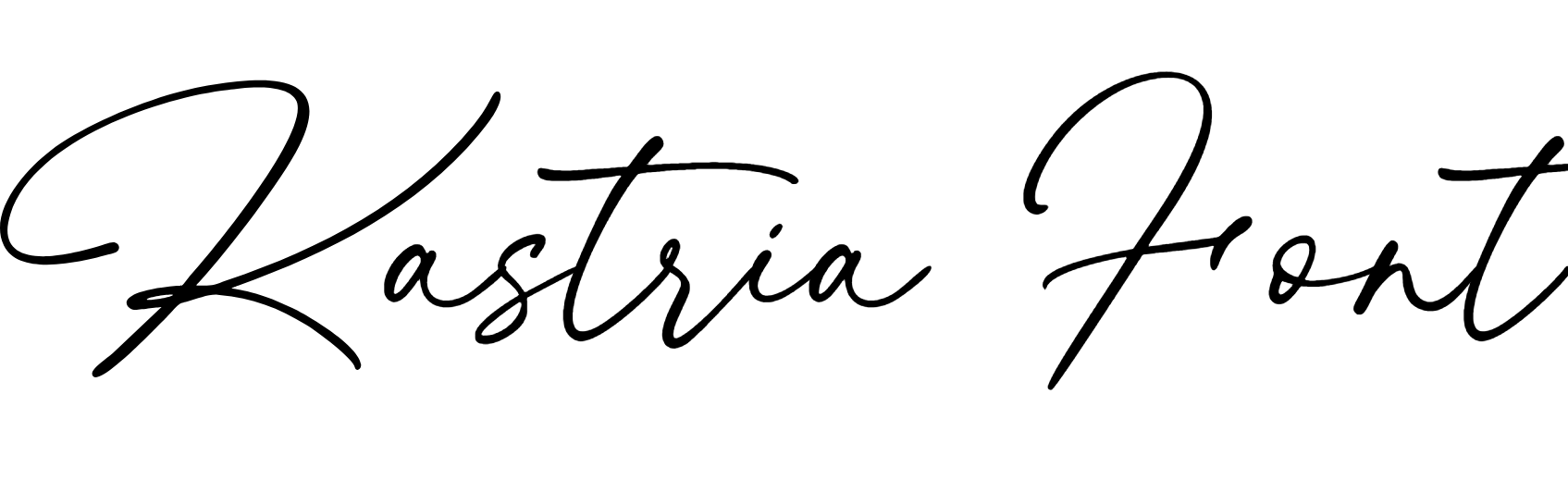
Kastria
Kastria is a handwritten font made by Muhamad Yusron Billah (2024). It looks like someone actually wrote it by hand: relaxed, friendly and a little imperfect in a good way. It's a free download, and you can try it with your own text in the preview above first.
What You Can Type With Kastria
With complete upper and lowercase letters and all ten digits, Kastria is ready for real wording, not just a single headline. Common punctuation such as &, !, ? and @ is included as well. It also has the accented letters you need for Spanish, French, German, Portuguese and Italian.
Ligatures and Smart Letters in Kastria
Where Kastria Works Best
Kastria is a natural fit for greeting cards, journal pages and friendly social posts. Its lowercase letters are small compared to the capitals, so set it a size or two bigger than usual. Set it a bit larger than you would a normal text font. Handwriting styles lose their charm once they get too small to read comfortably.
Does Kastria have ligatures?
Yes. Kastria has ligatures that turn on by themselves in most design apps and browsers, so you don't need to do anything special.
Does Kastria support accented letters?
Yes. Kastria includes the accented letters needed for Spanish, French, German, Portuguese and Italian, so it works for more than just English.